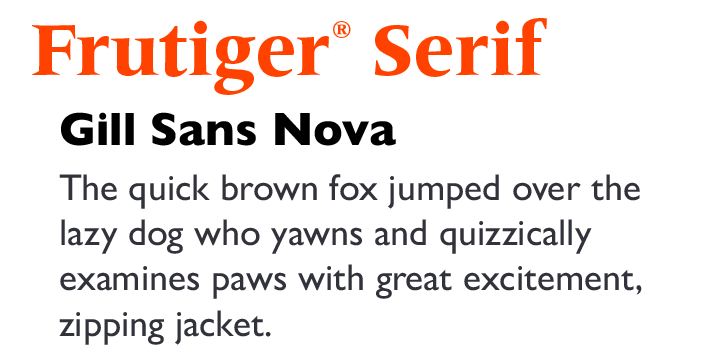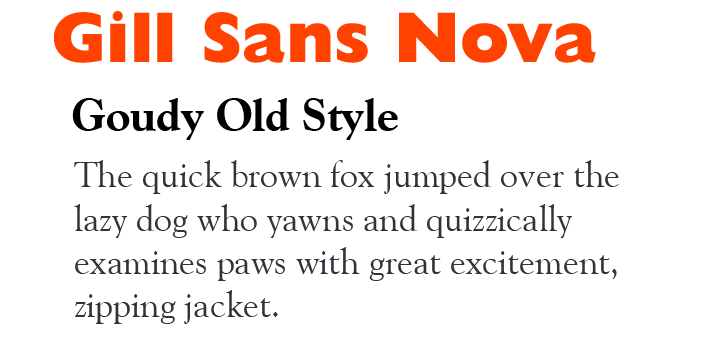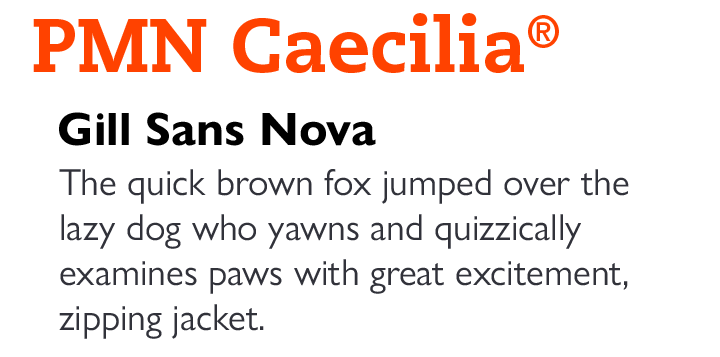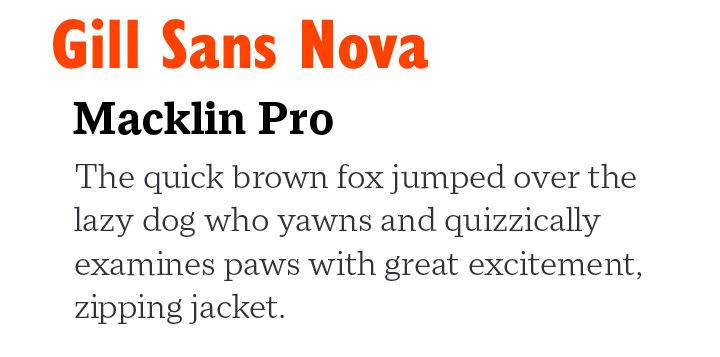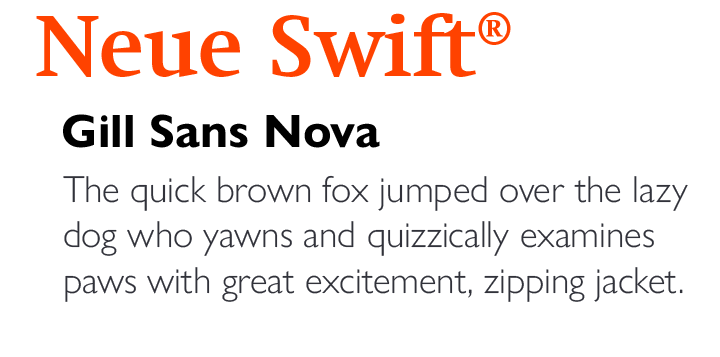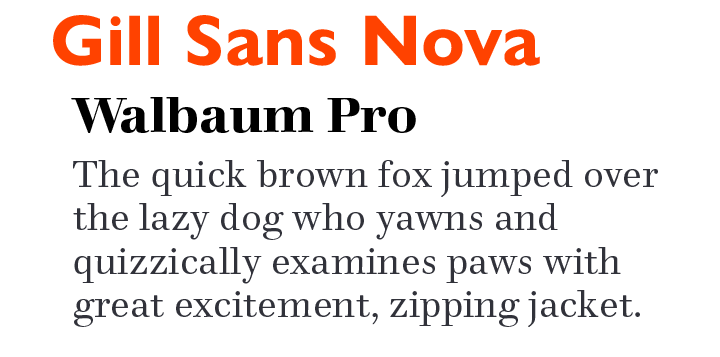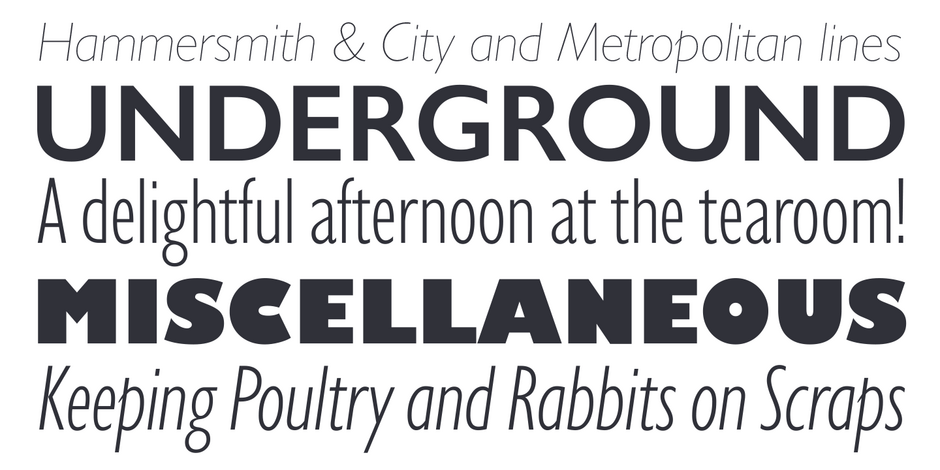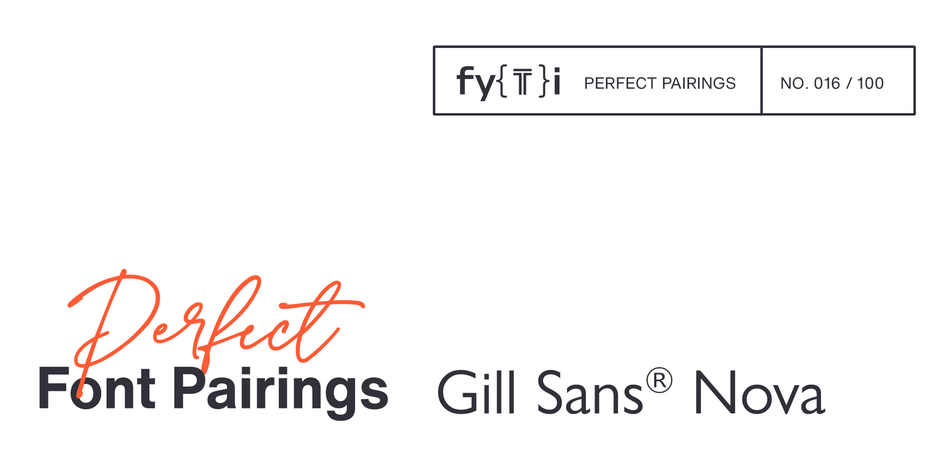
Gill Sans® Nova Perfect Font Pairings
FOUNDRY: Monotype
DESIGNER: Eric Gill and George Ryan
CLASSIFICATION: Humanistic Sans Serif
ABOUT THE FAMILY
- The Gill Sans® Nova family is part of Monotype’s revived and reimaged Eric Gill Series suite of typefaces. The Gill Sans Nova typefaces are contemporary digital designs, in a wide range of weights, with alternate characters and extended language support.
- Drawn by George Ryan, the original family has been enlarged to 43 designs in addition to several new display designs.
WHAT TO LOOK FOR IN FONTS THAT PAIR WELL WITH GILL SANS NOVA
- Slab or Clarendon typefaces with subtle to overt humanistic overtones.
- Transitional or Didone typeface designs like Monotype Baskerville or Arepo™.
- Avoid sans serif fonts, but some square sans, like Cachet™ and DIN® Next, will pair reasonably well with Gill Sans Nova, but ensure that the weights of the two designs are very different from each other.
GILL SANS NOVA PAIRING WITH DISPLAY FONTS
GILL SANS NOVA PAIRING WITH TEXT FONTS